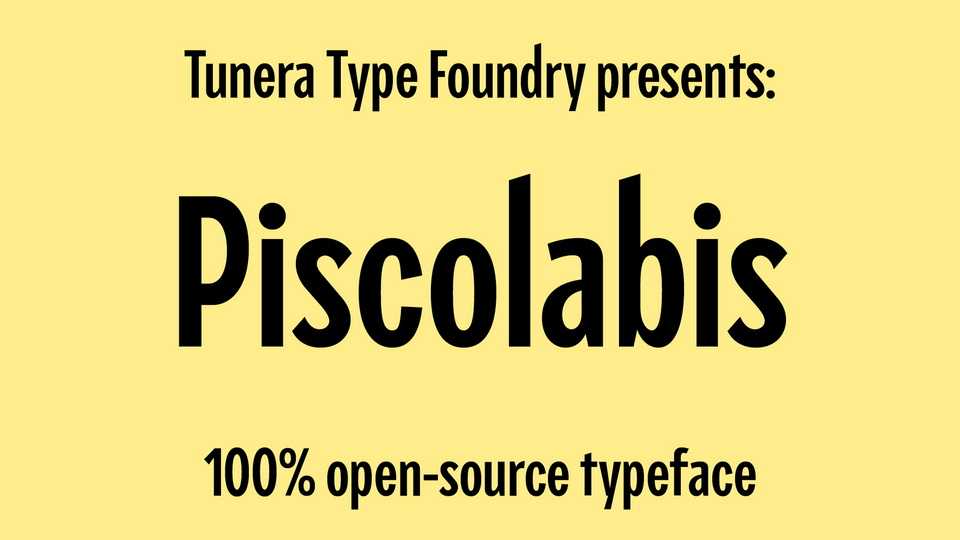
Download Piscolabis font, a bold, condensed sans serif typeface that will allow you to set compact titles with just a little bit of swag. Piscolabis was inspired by hand painted signs around Europe.
Designer: Ariel Martín Pérez